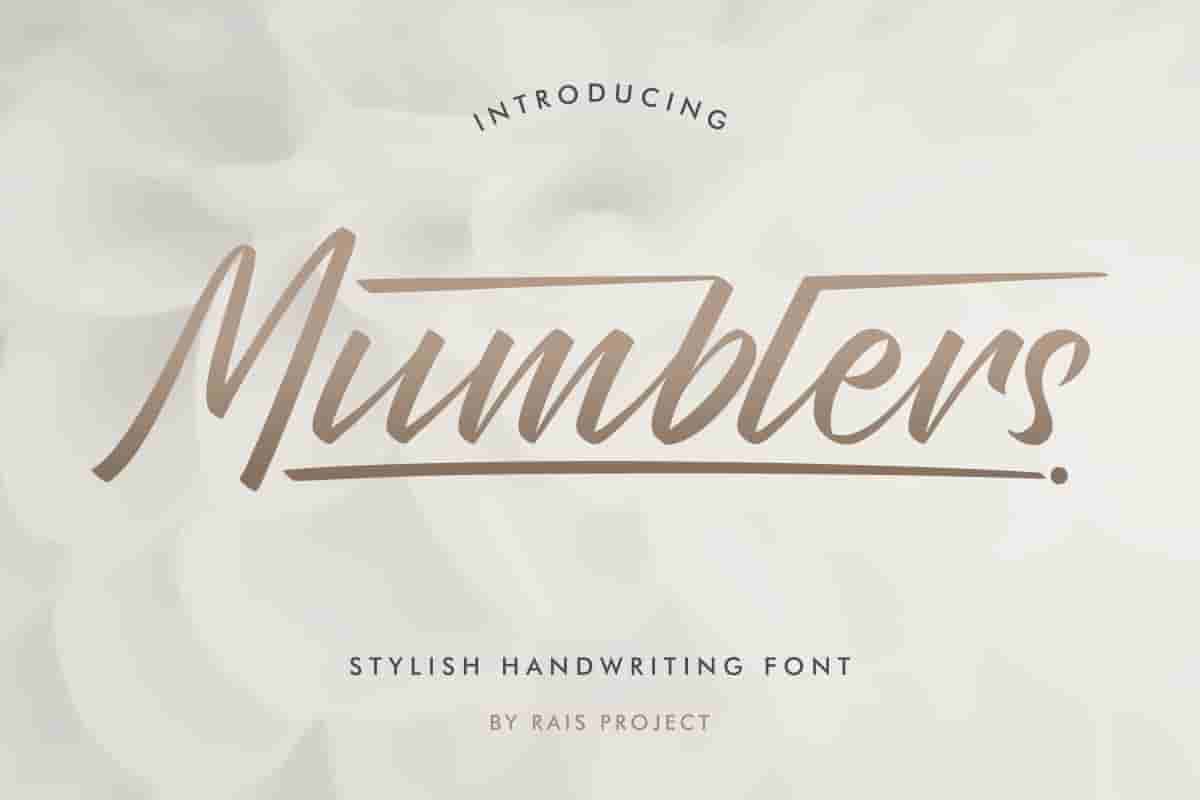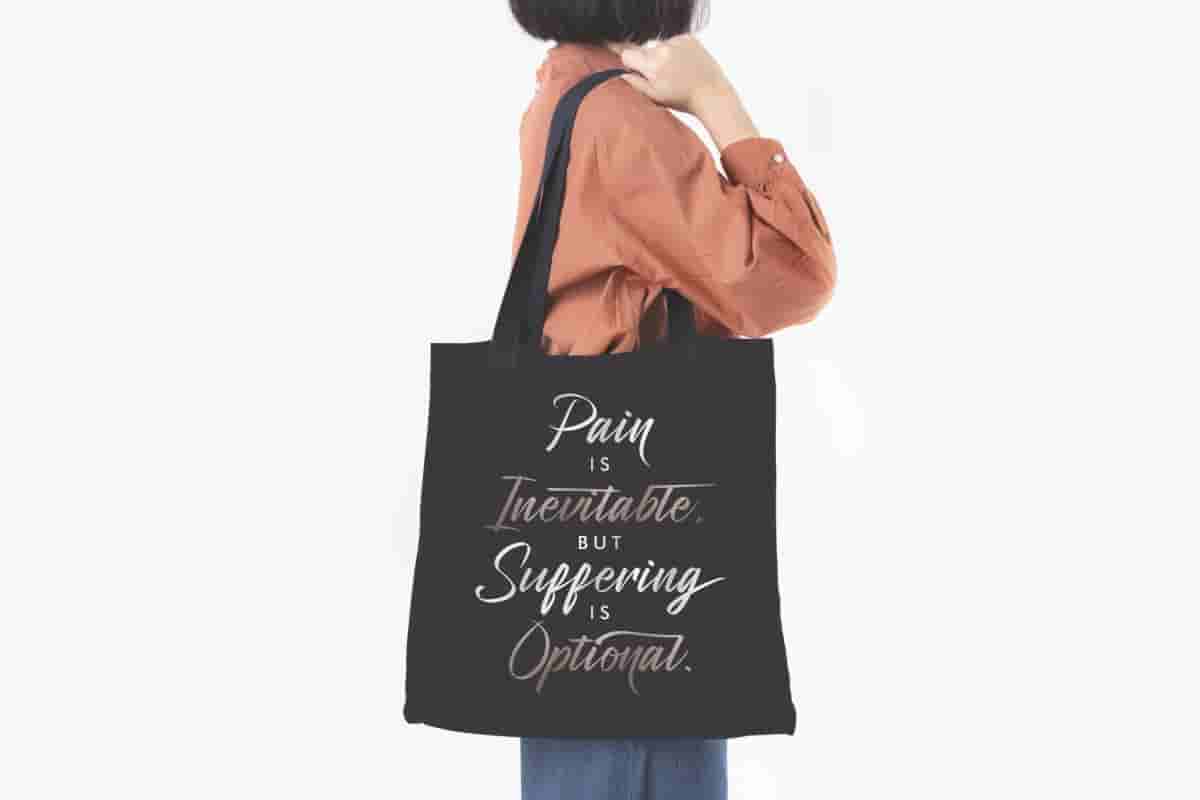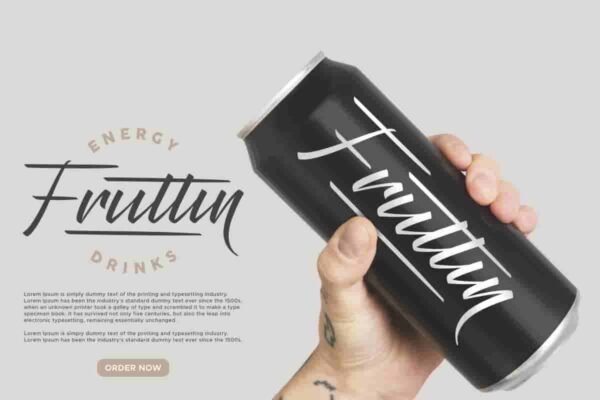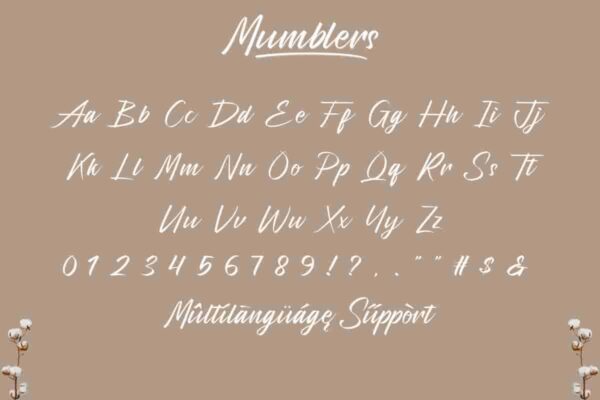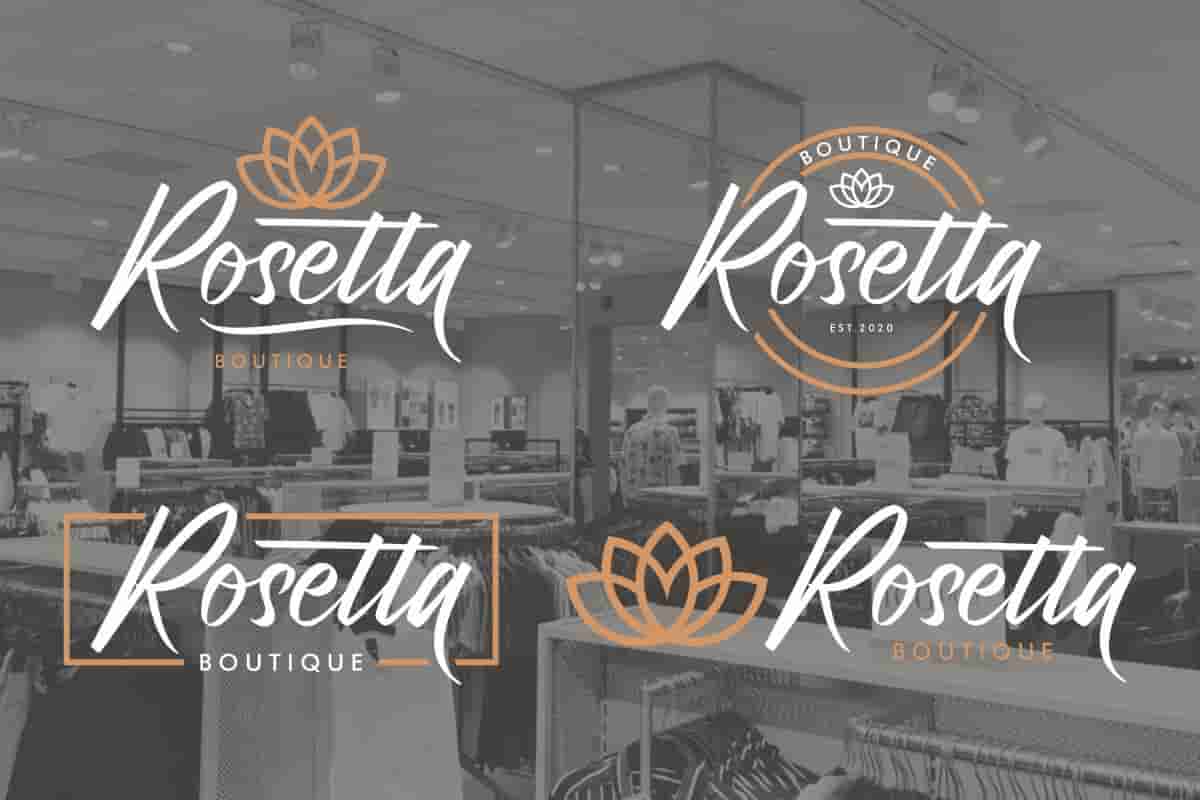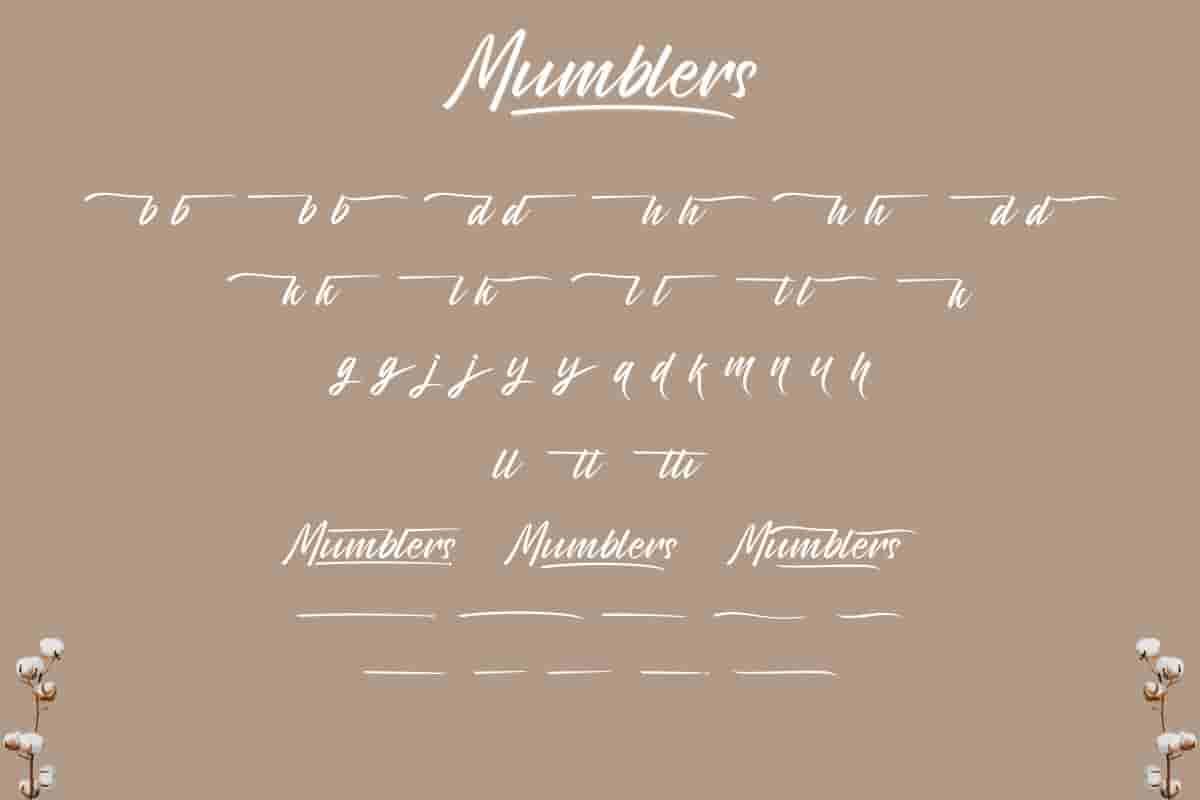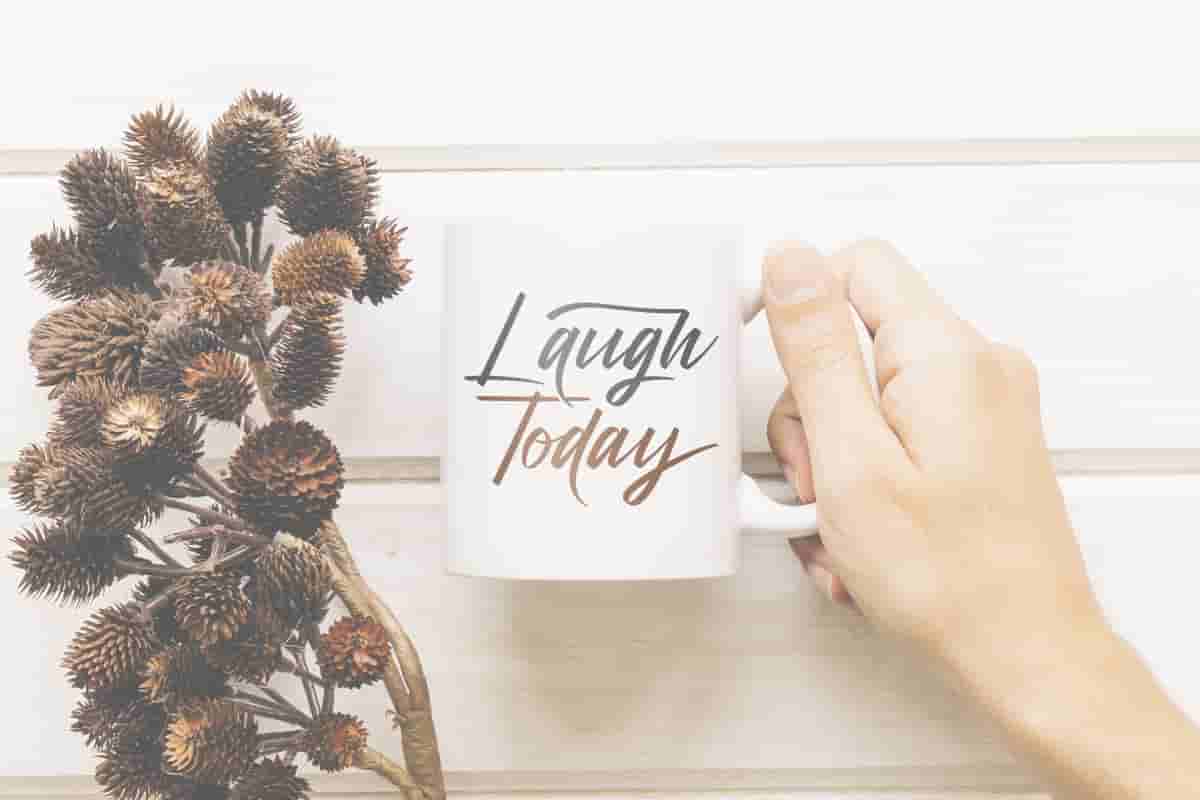
Mumblers Calligraphy Font
Mumblers Font is a Calligraphy script font by RaisProject. With beautiful characters, it will be stunning for any your special projects including : weddings, promotion, events, branding, advertising etc
Mumblers Font is our next font on the market. It is a script font with calligraphic handwriting style. You can see the demo font below. Mumblers Font made in Indonesia.  Mumblers Font includes full set of gorgeous uppercase and lowercase letters, numerals, a large range of punctuation and ligatures. All letters has realistic hand-lettered style to make it unique yet stunning design. You will get:
Elevate your designs with the stunning Mumblers Calligrapy a handcraft Use Mumblers for wedding invitations, branding, logos, Instagram posts, packaging, or anything that needs a stylish and feminine touch. Each character flows with charm, making your words feel expressive and full of life.Every stroke of Mumblers feels authentic.